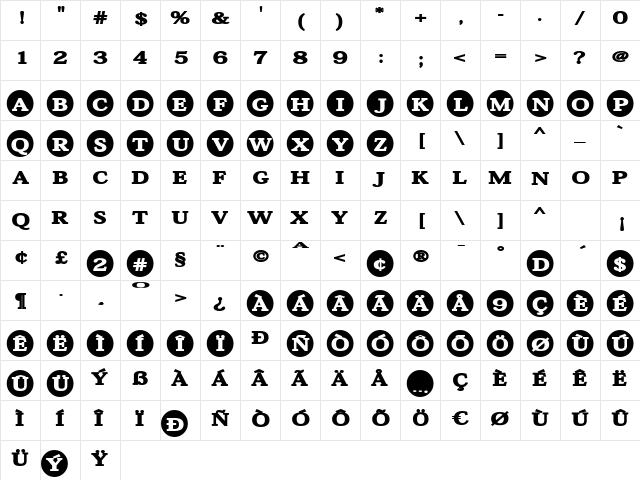
Passports Regular
Design Context for Passports Typeface
Passports brings high-energy athletic personality to the page — its confident, muscular forms are built for impact.
A natural choice for gym brands, fantasy sports, jersey lettering, and action-driven headlines.
Font Pairing: Use alongside a condensed or geometric sans for supporting copy — keep the pairing bold, functional, and free of ornament.
Pro Tip: Use Passports in all-caps headlines where its athletic energy can fully express itself. Pair with a solid, simple sans for supporting text.